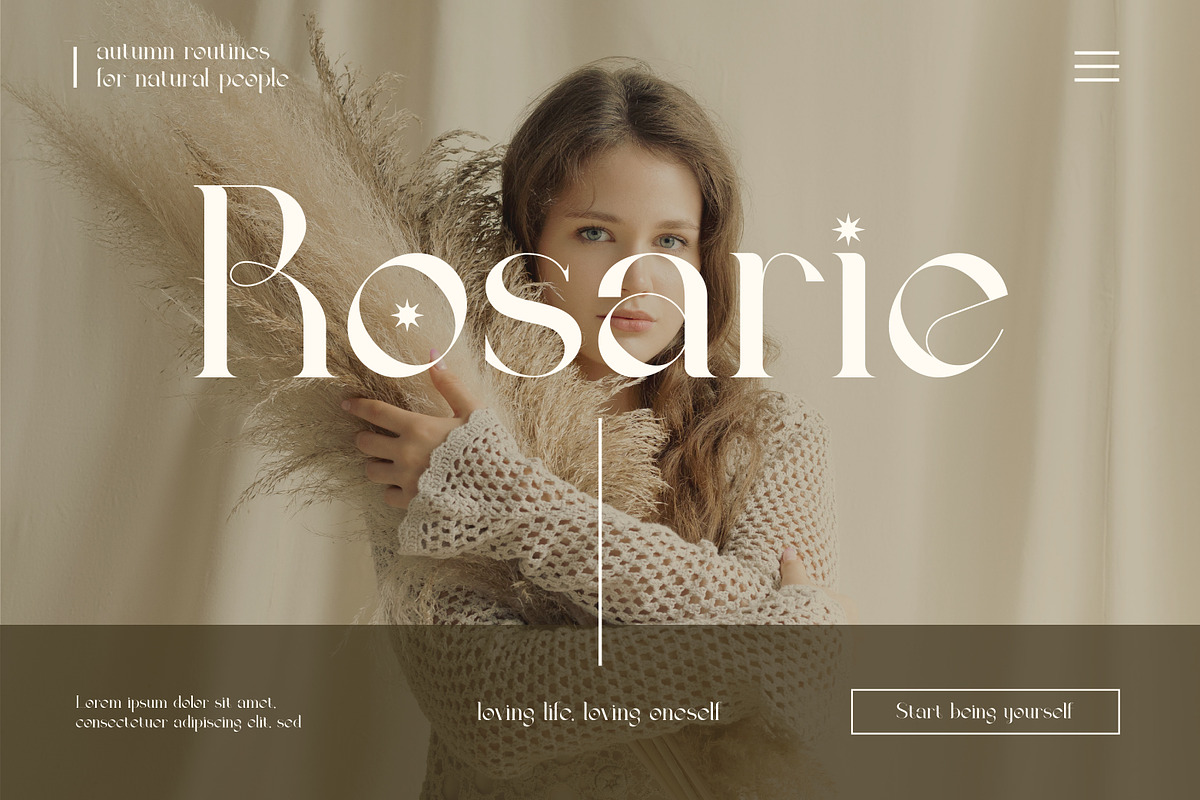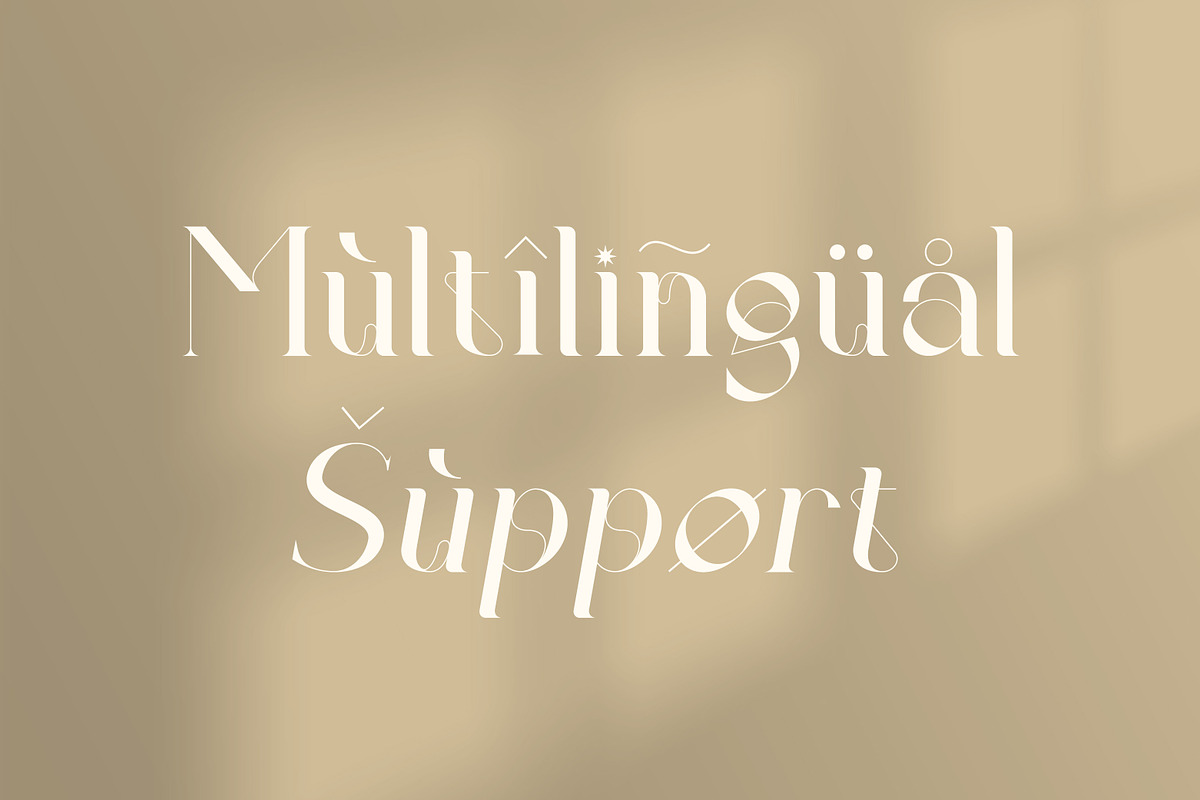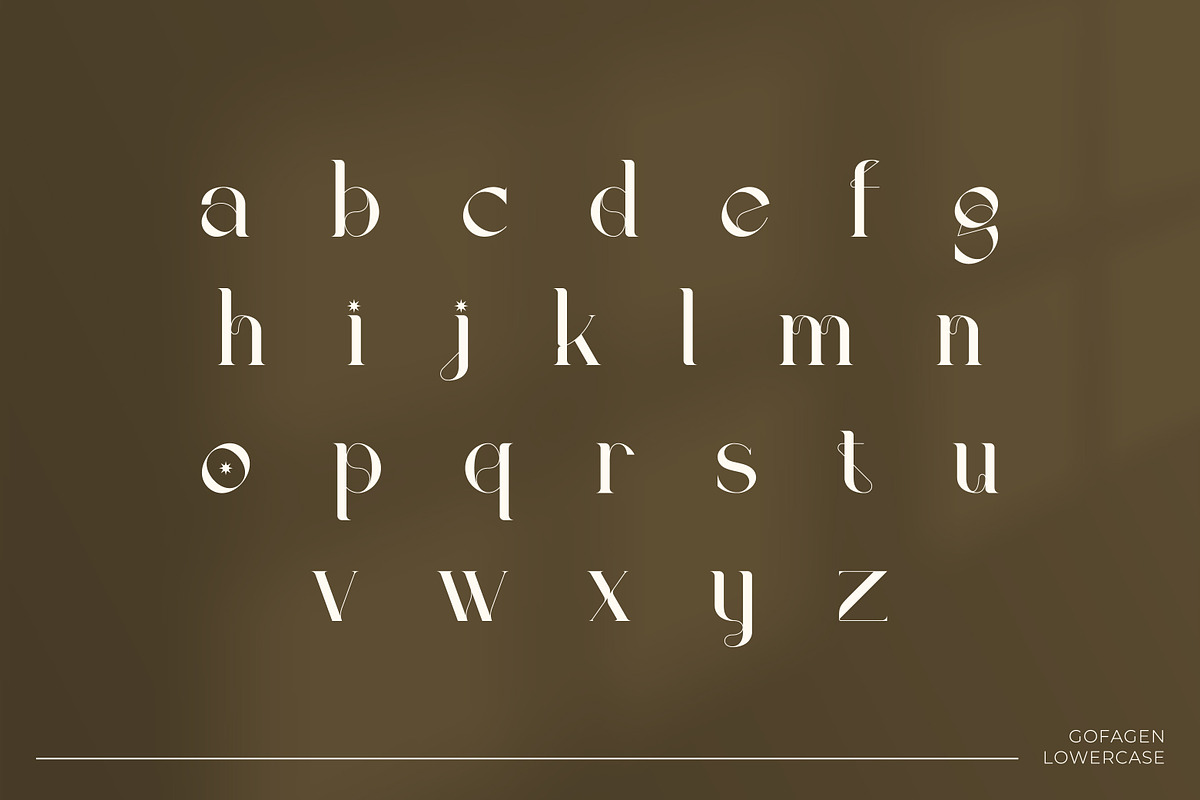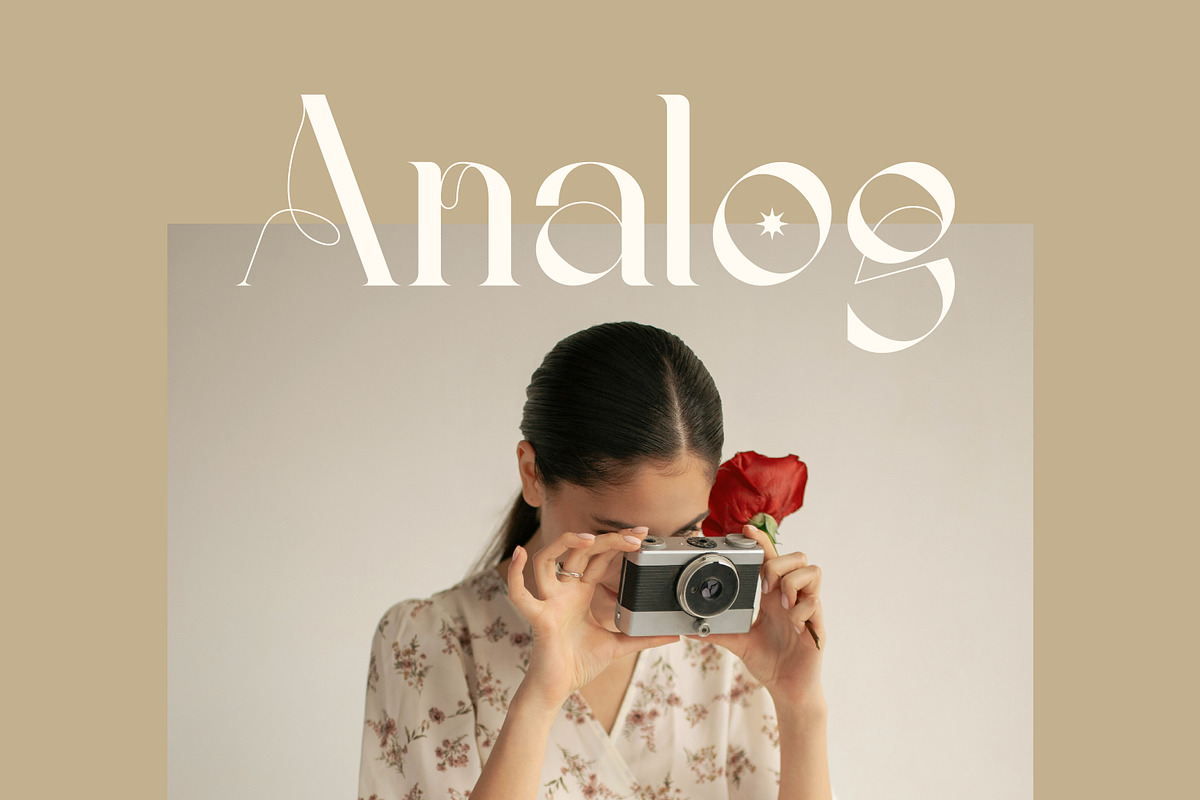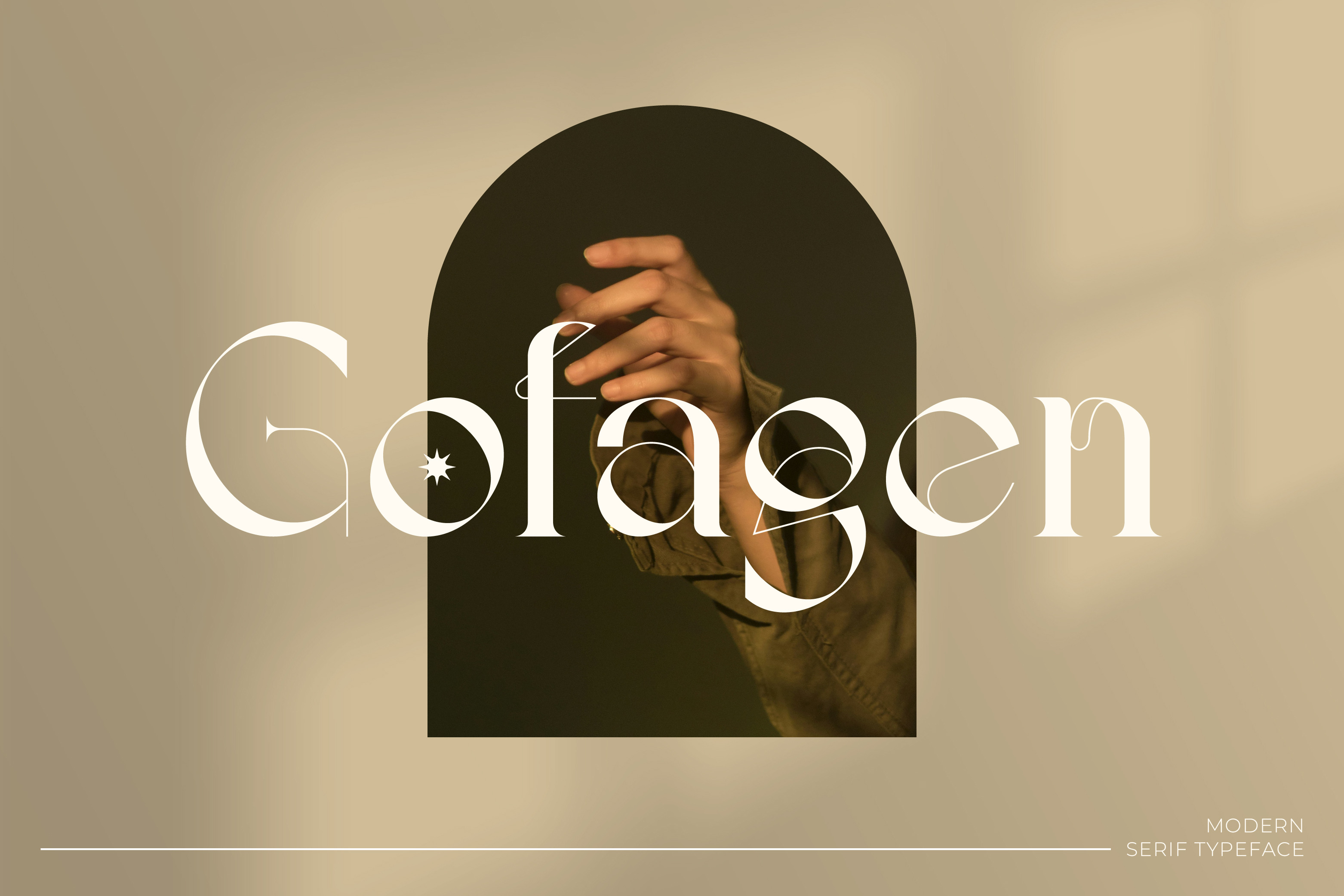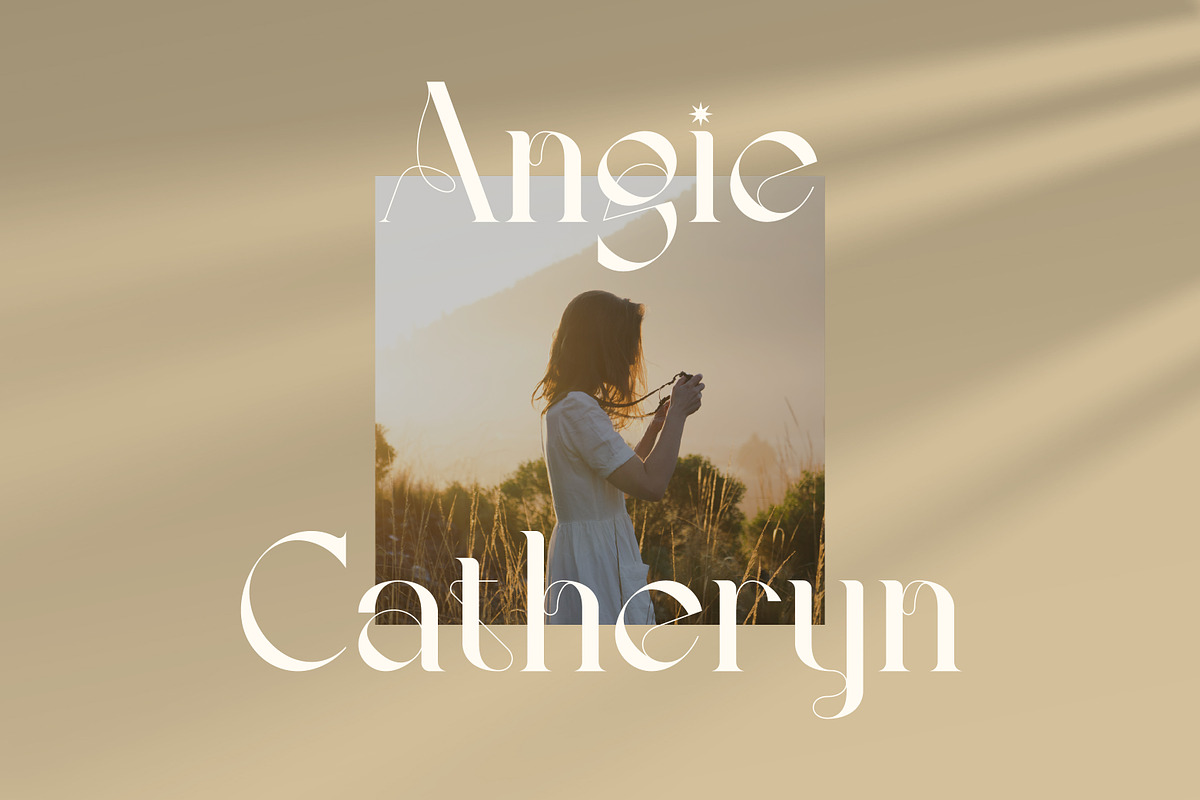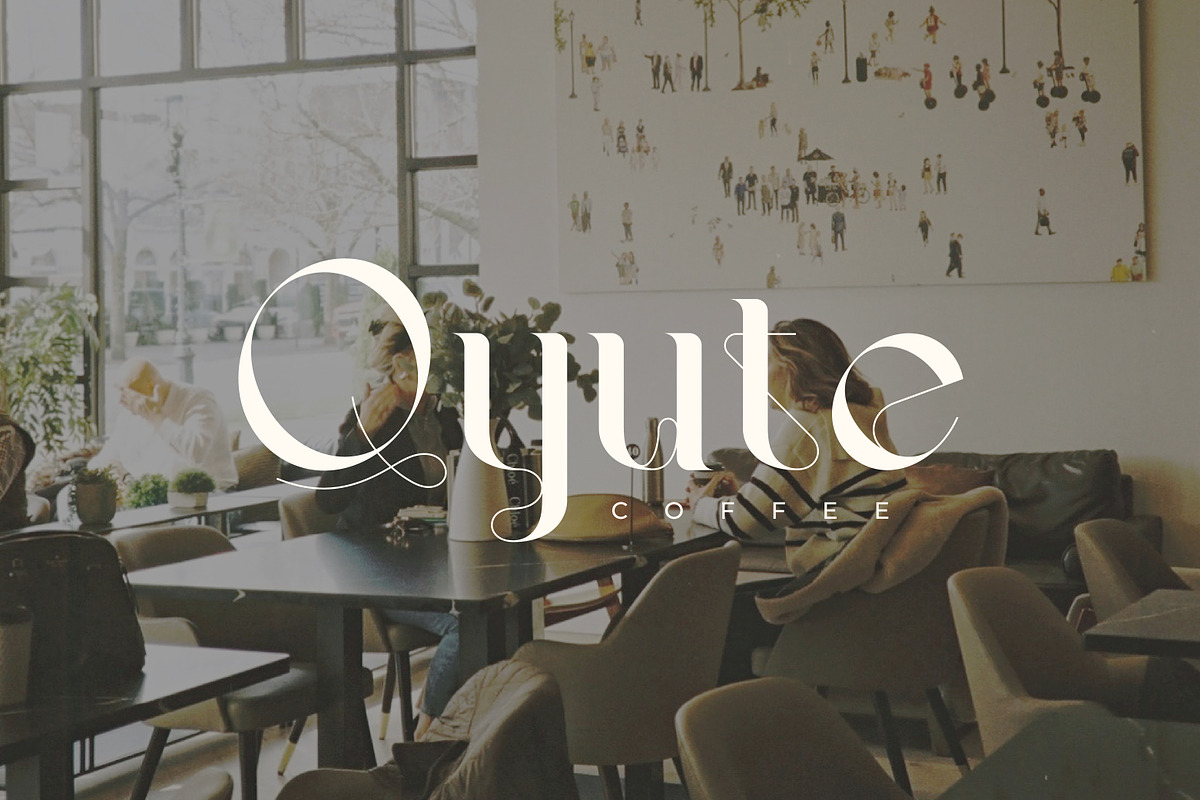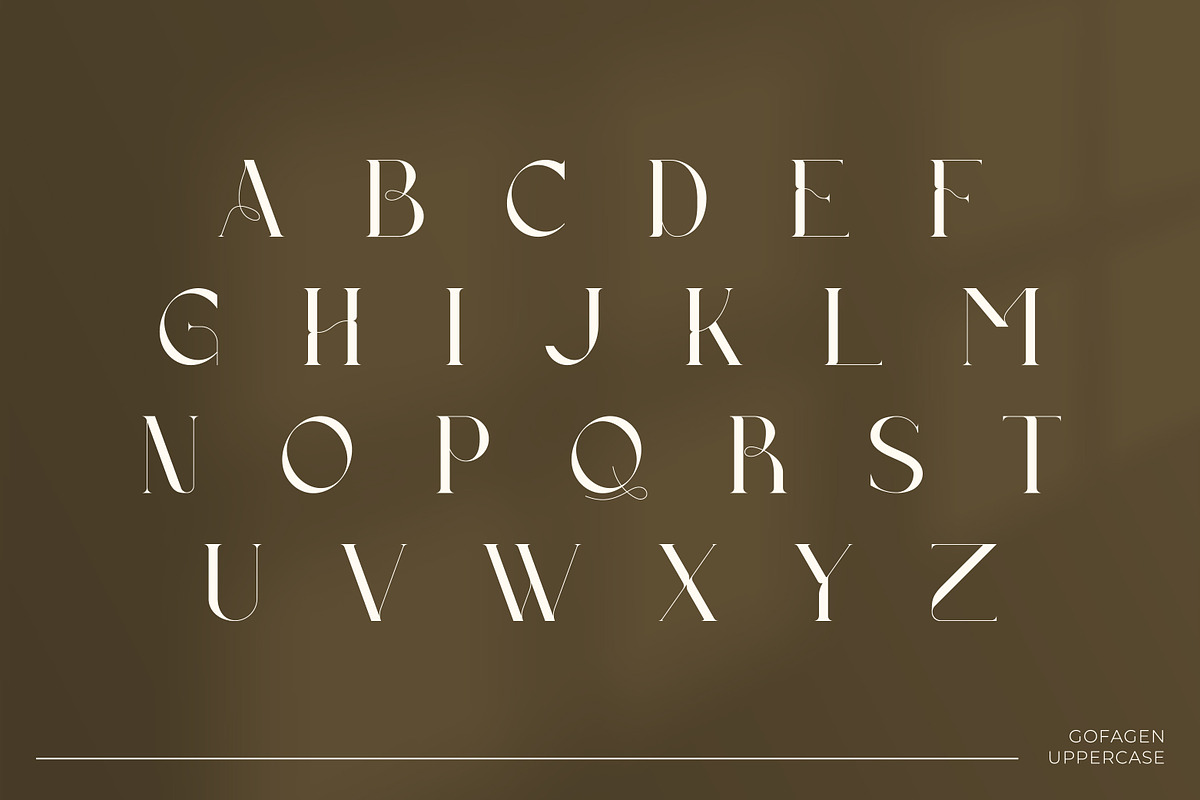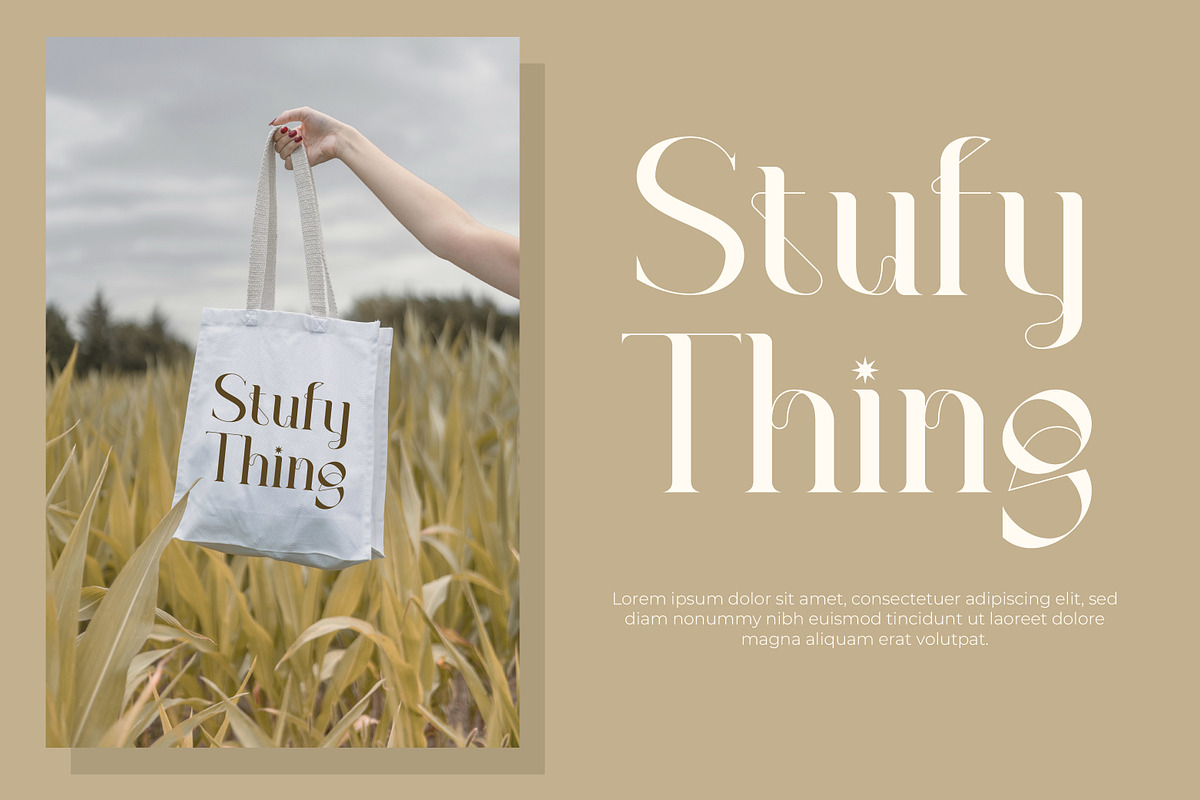
Gofagen | Modern Serif Typeface
Gofagen – Modern Elegant Serif Typeface. This font has a beauty, modern, and elegant character. Suitable for your various special project needs.